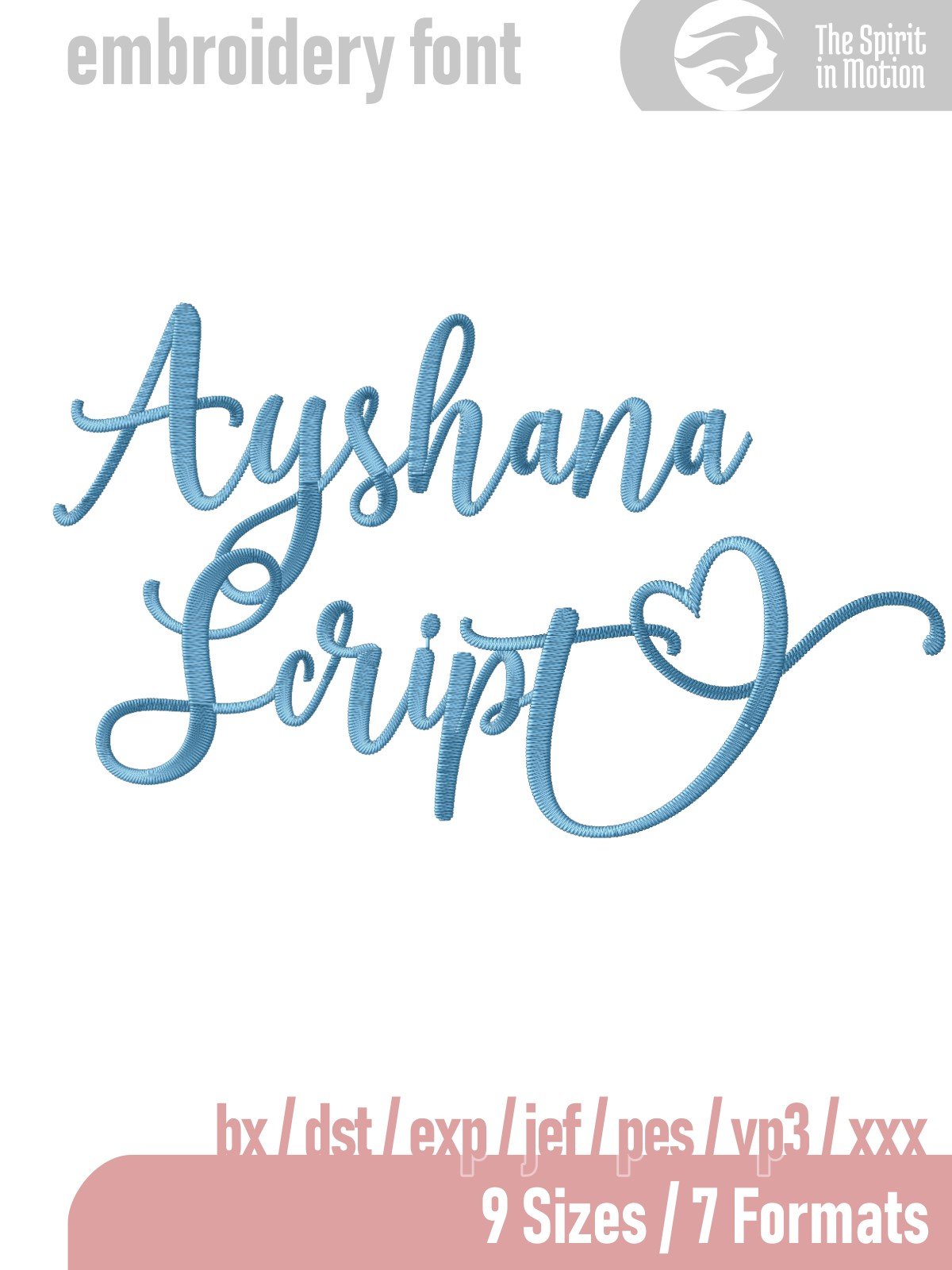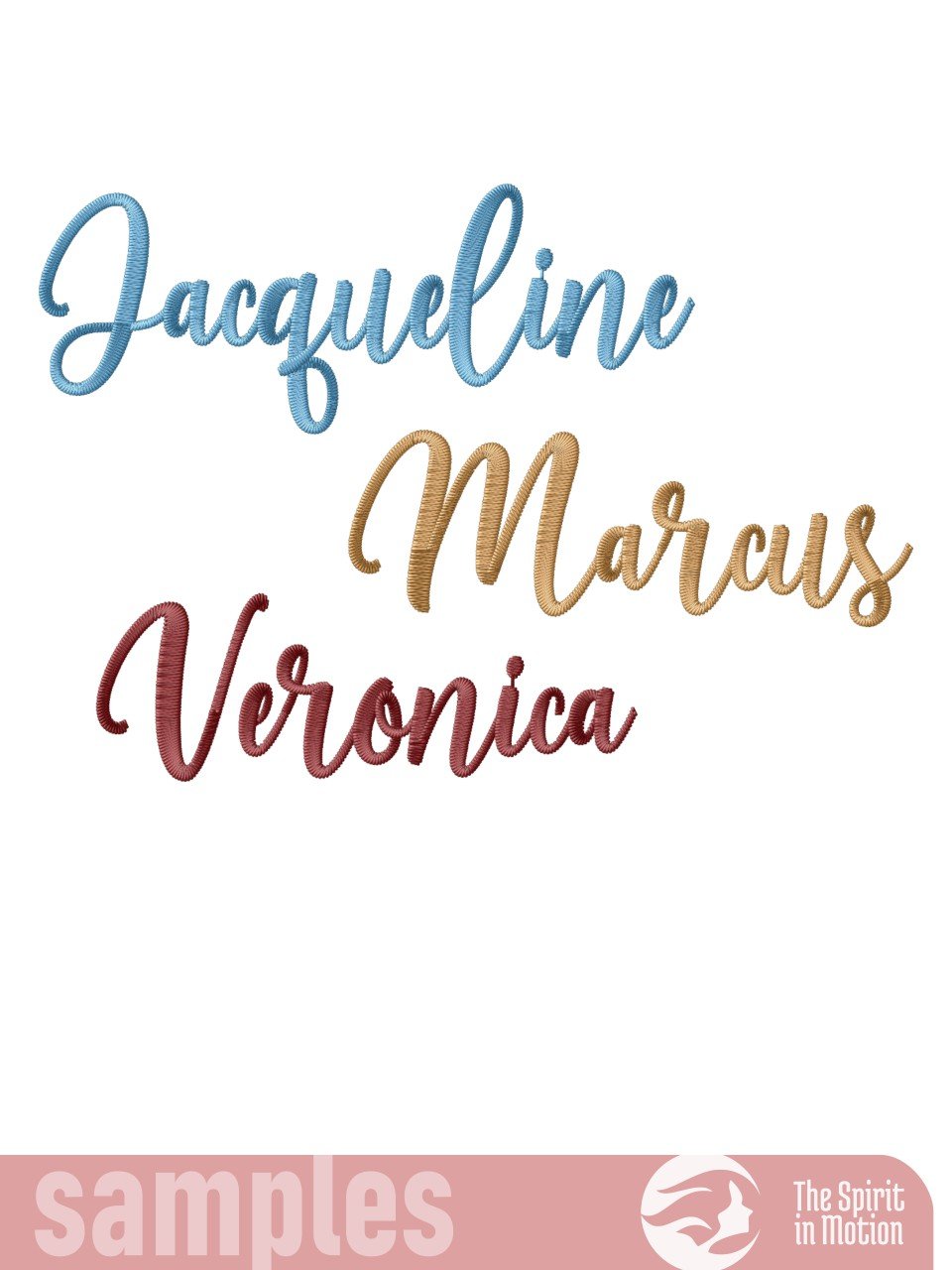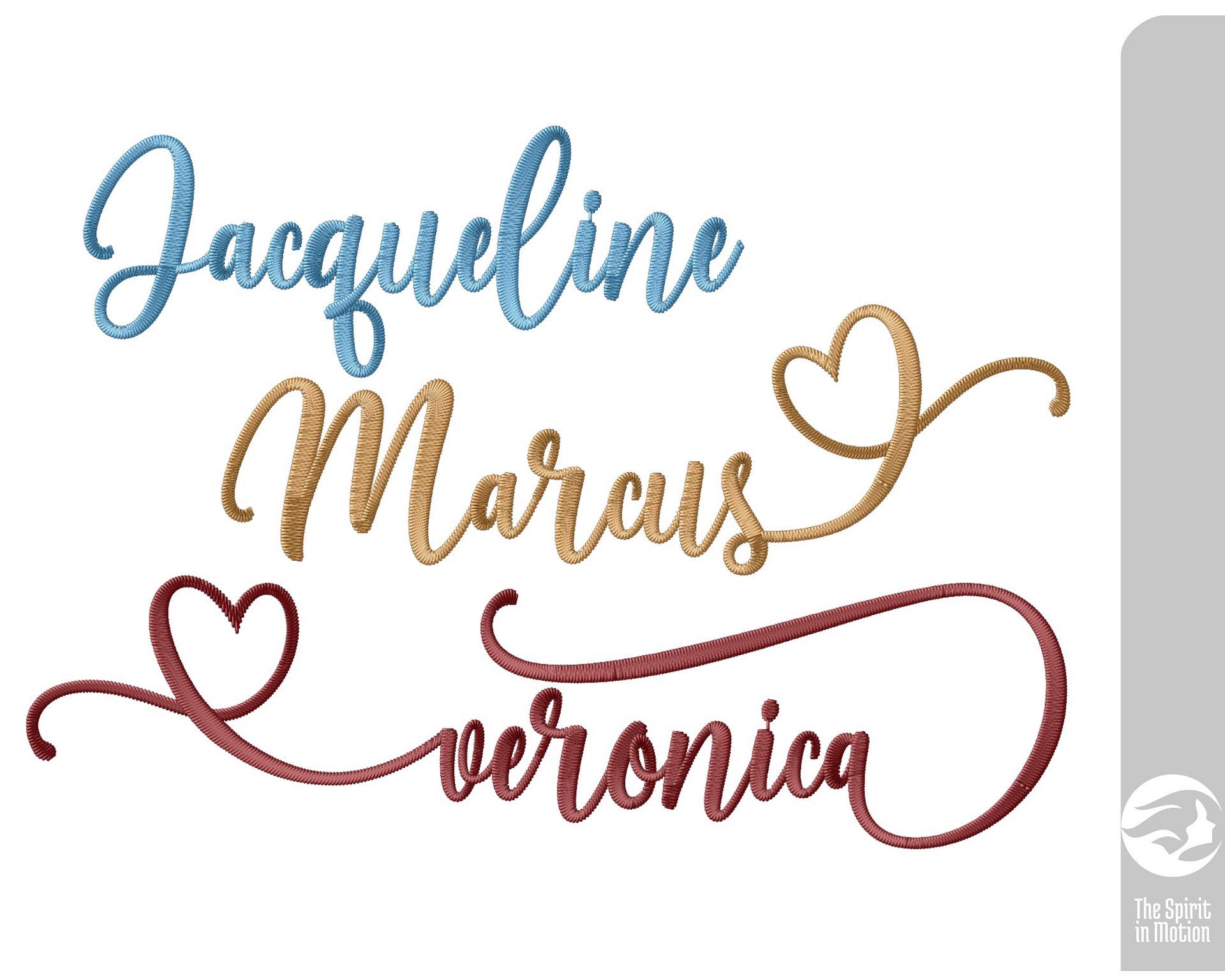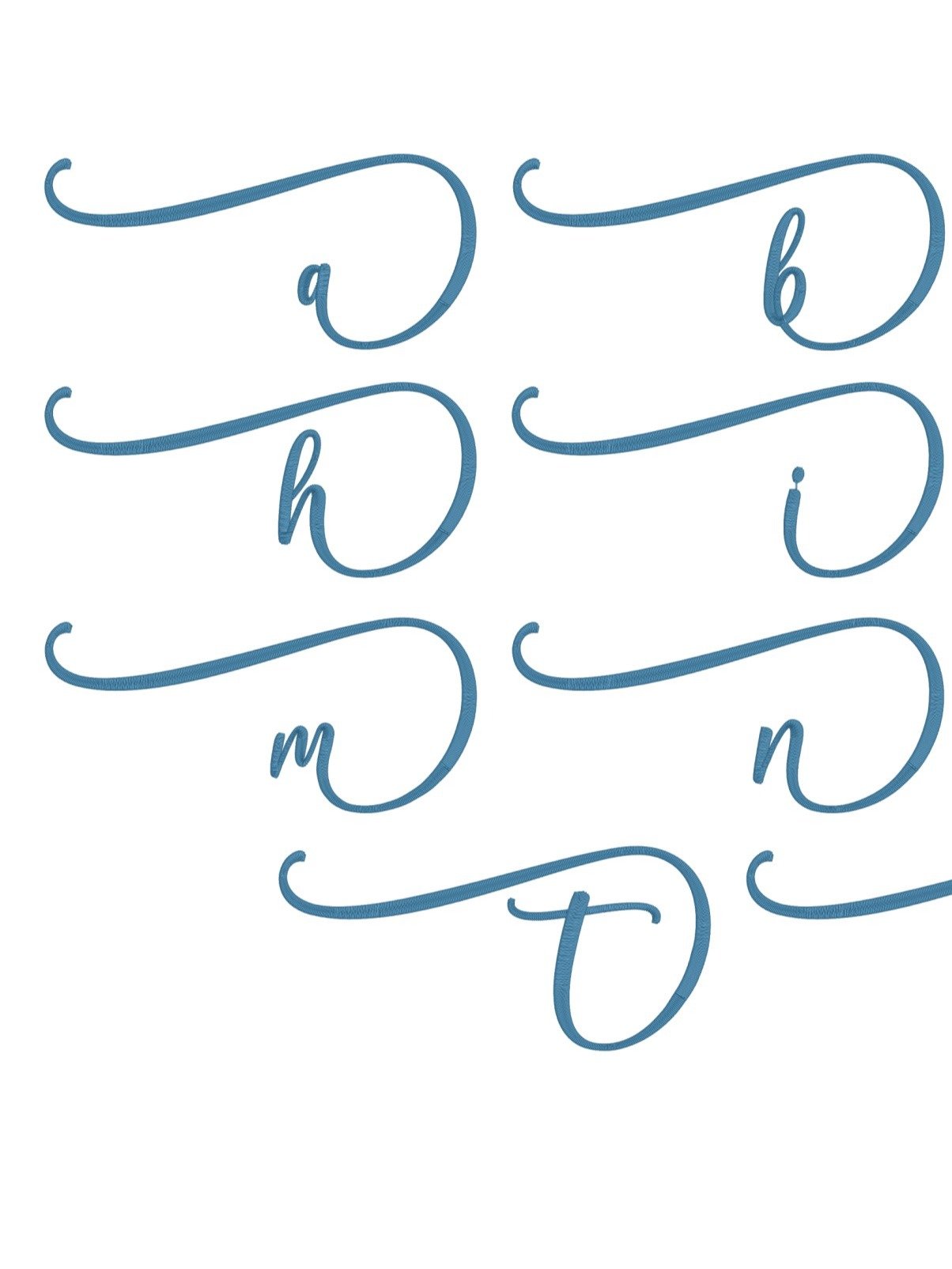
Ayshana Script Machine Embroidery Font & Special Characters | PES, BX, DST
Add a stylish and modern flair to your embroidery projects with this sleek script font. Perfect for personalizing clothing, accessories, or home décor, its flowing script design adds elegance and charm to monograms, quotes, and decorative details. The listed sizes refer to the approximate height of uppercase letters, though adjustments may be needed depending on your specific project and machine settings.